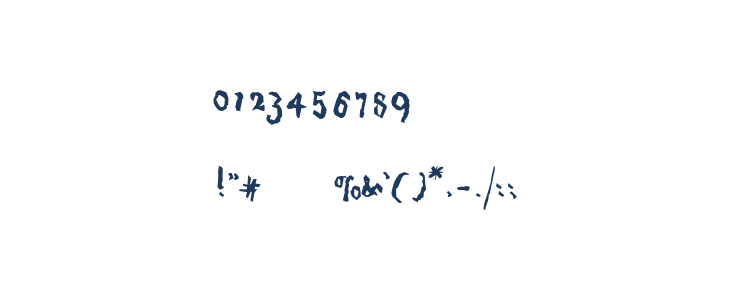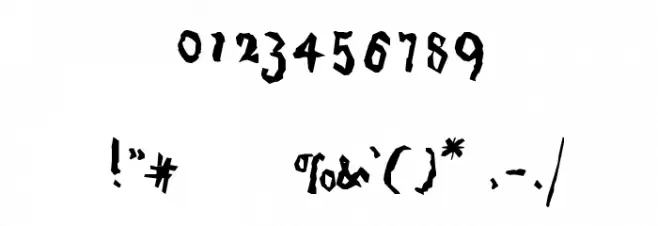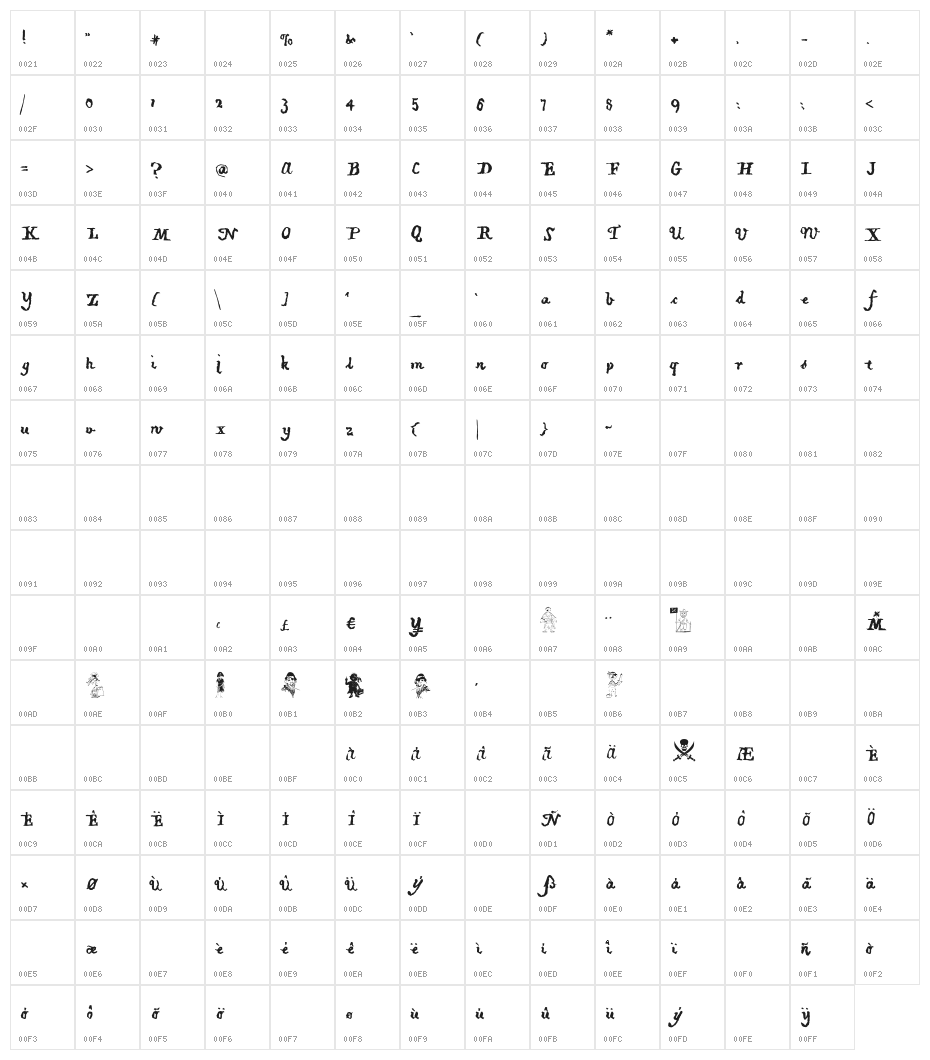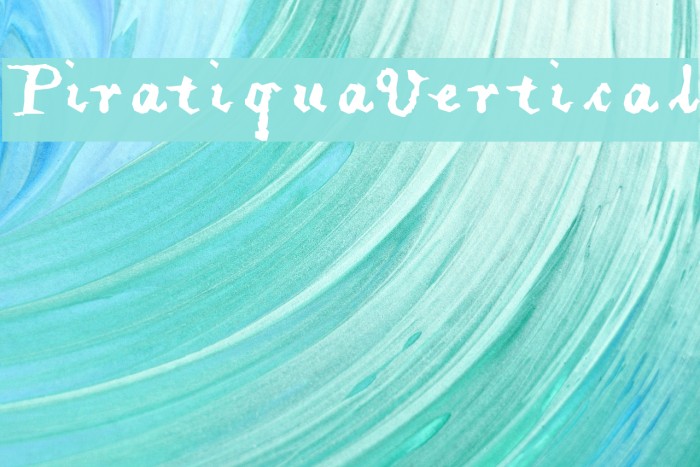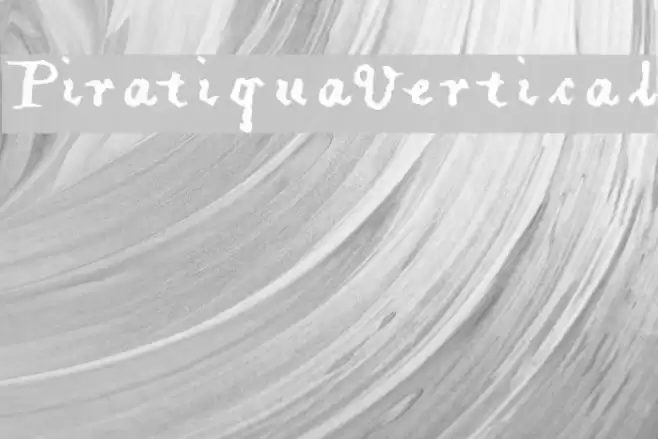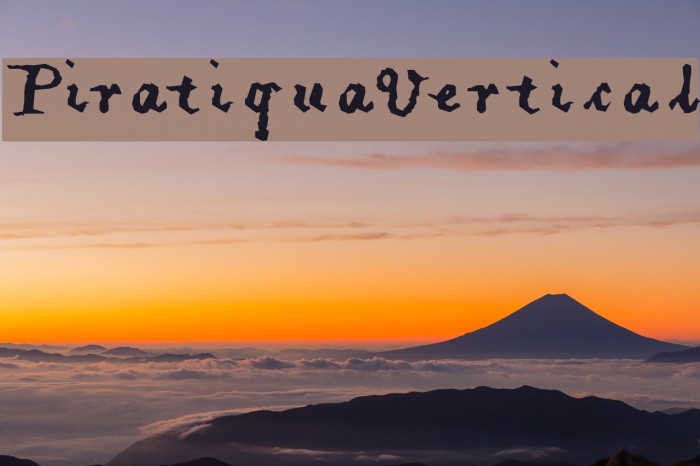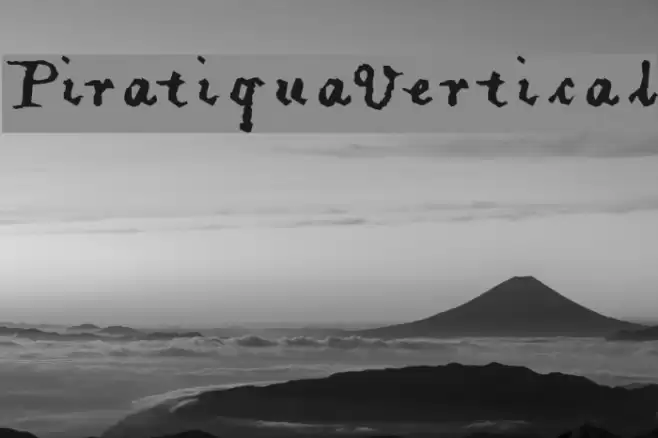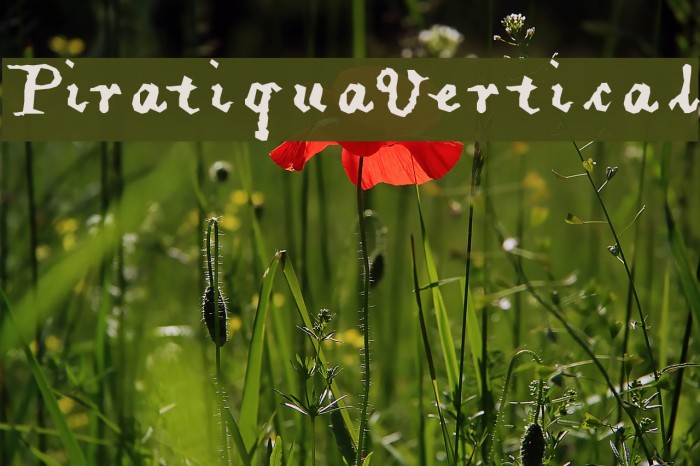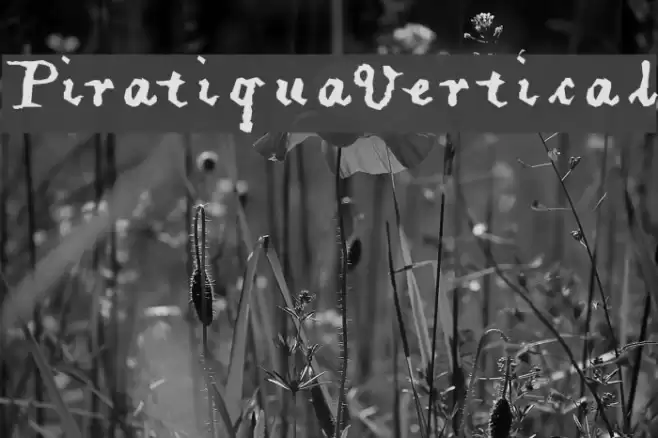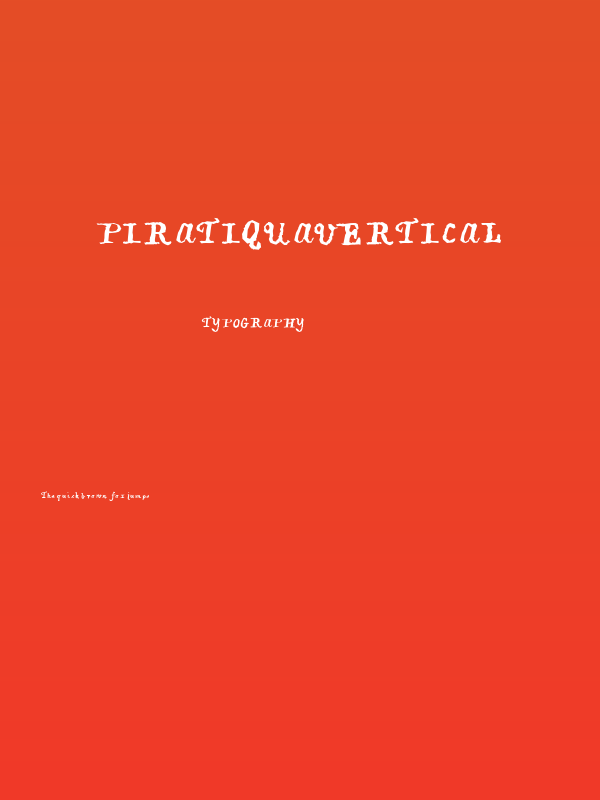
PiratiquaVertical Font
PiratiquaVertical Description
This font features a bold and dynamic style with a hand-drawn appearance, reminiscent of pirate-themed or vintage nautical aesthetics. The uppercase letters are robust and slightly irregular, giving a sense of movement and energy. Lowercase letters maintain a consistent style, with unique flourishes that add character. Numbers are bold and match the overall theme, while special characters are creatively designed to fit the aesthetic. The font's rough edges and uneven strokes contribute to its rustic charm, making it ideal for projects that require a touch of adventure or historical flair.